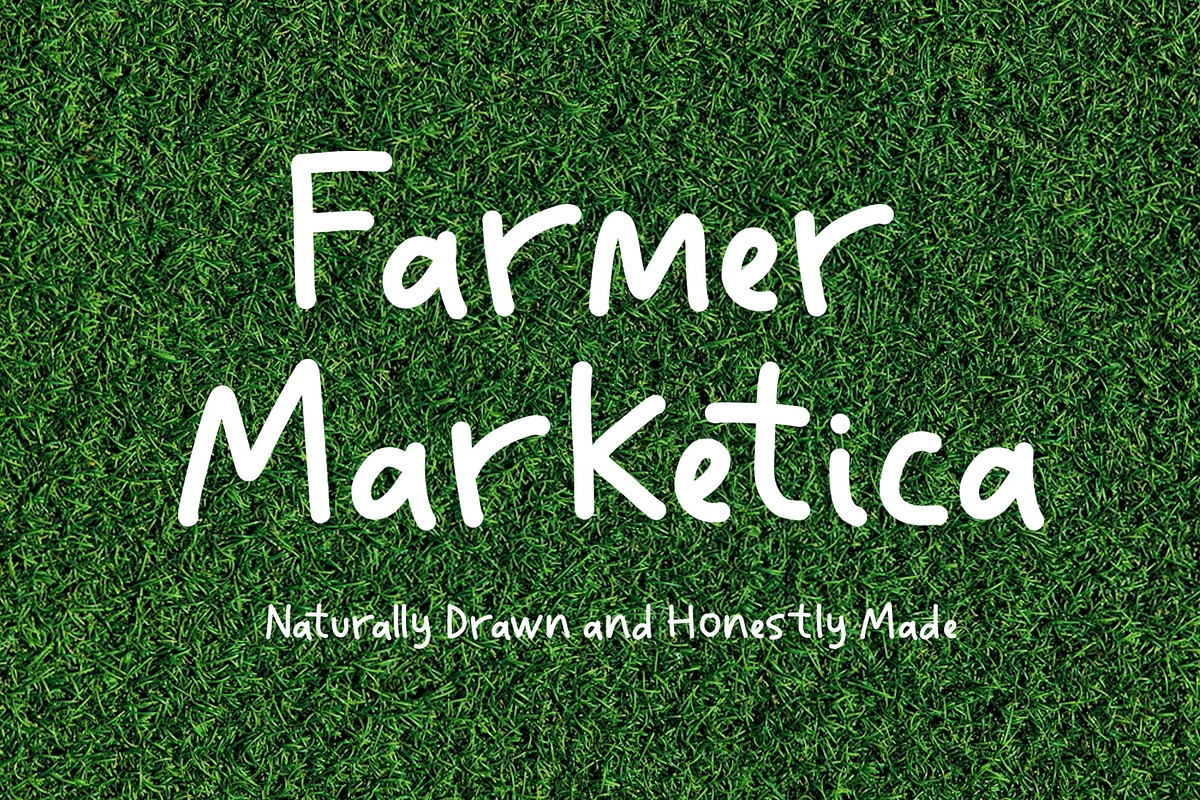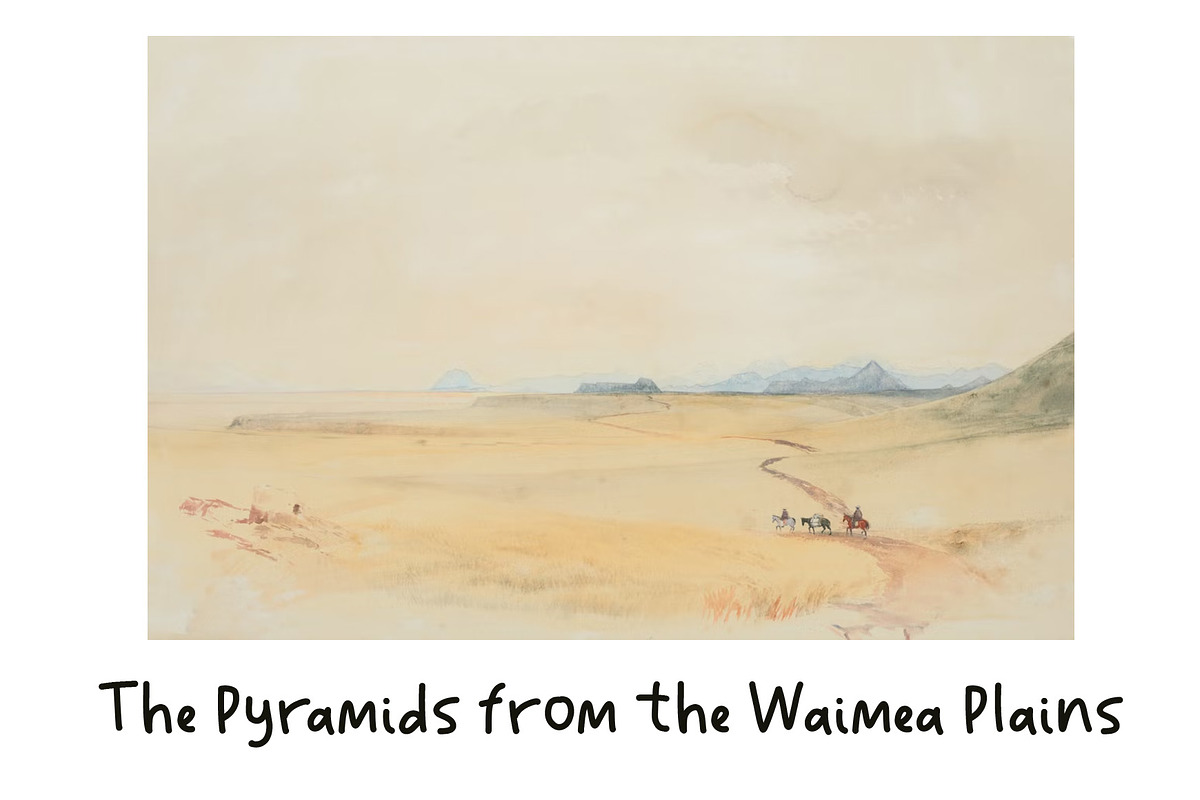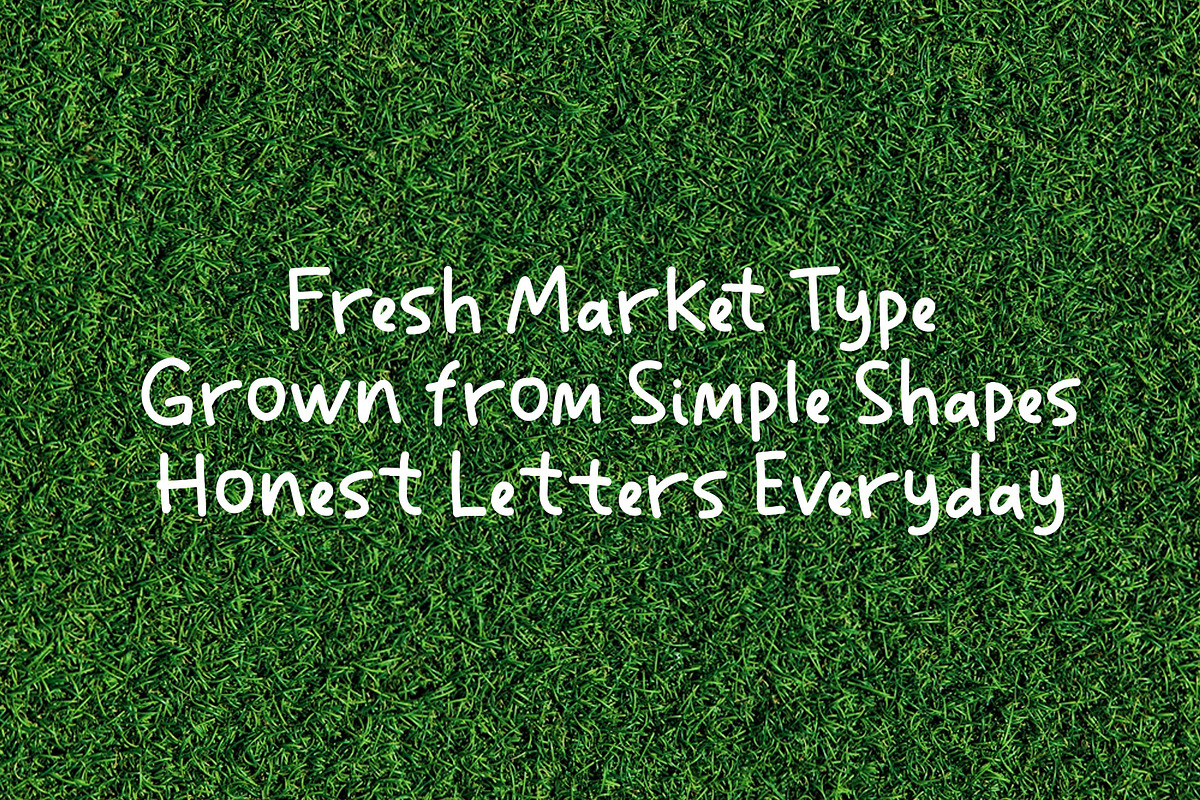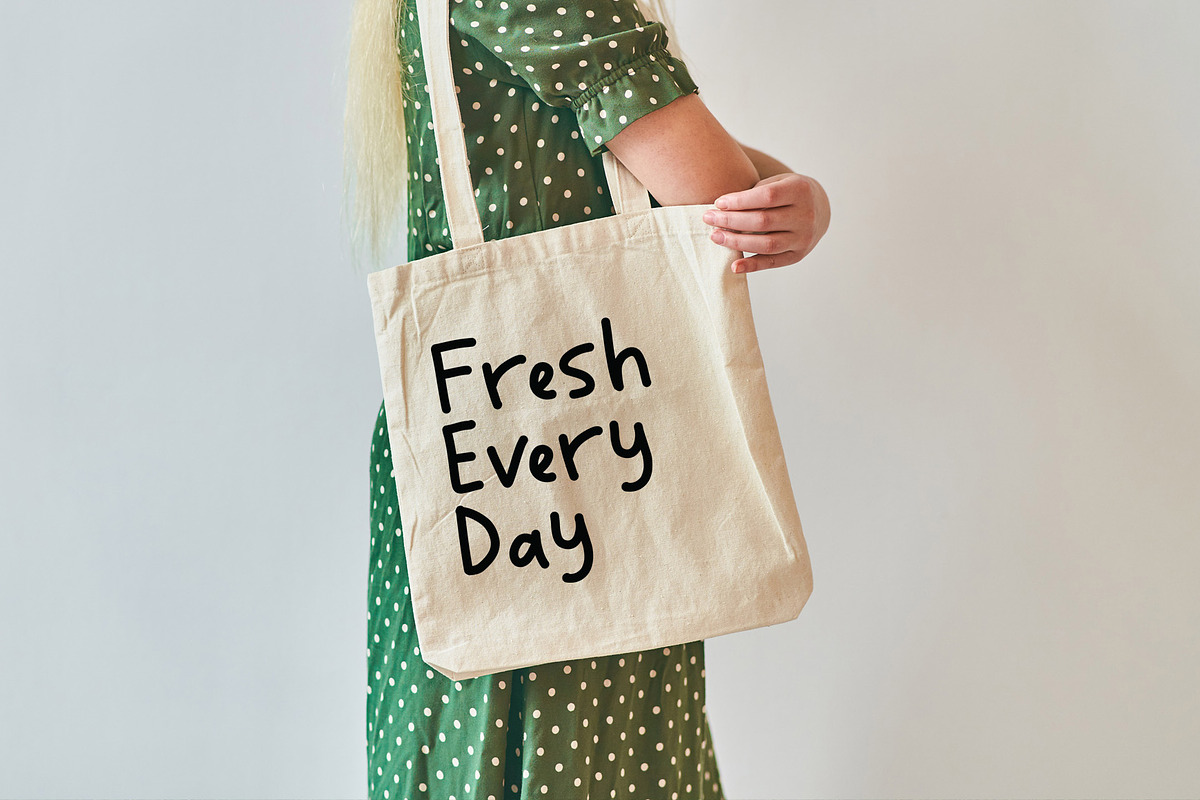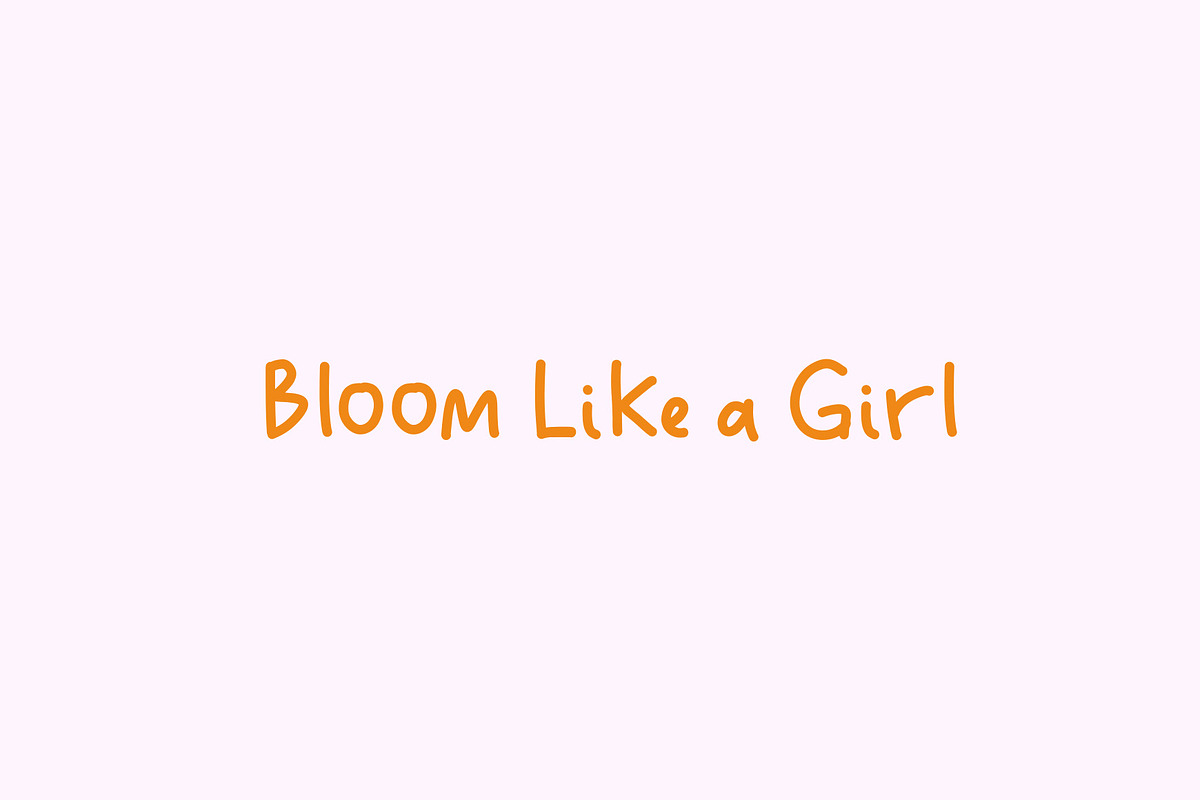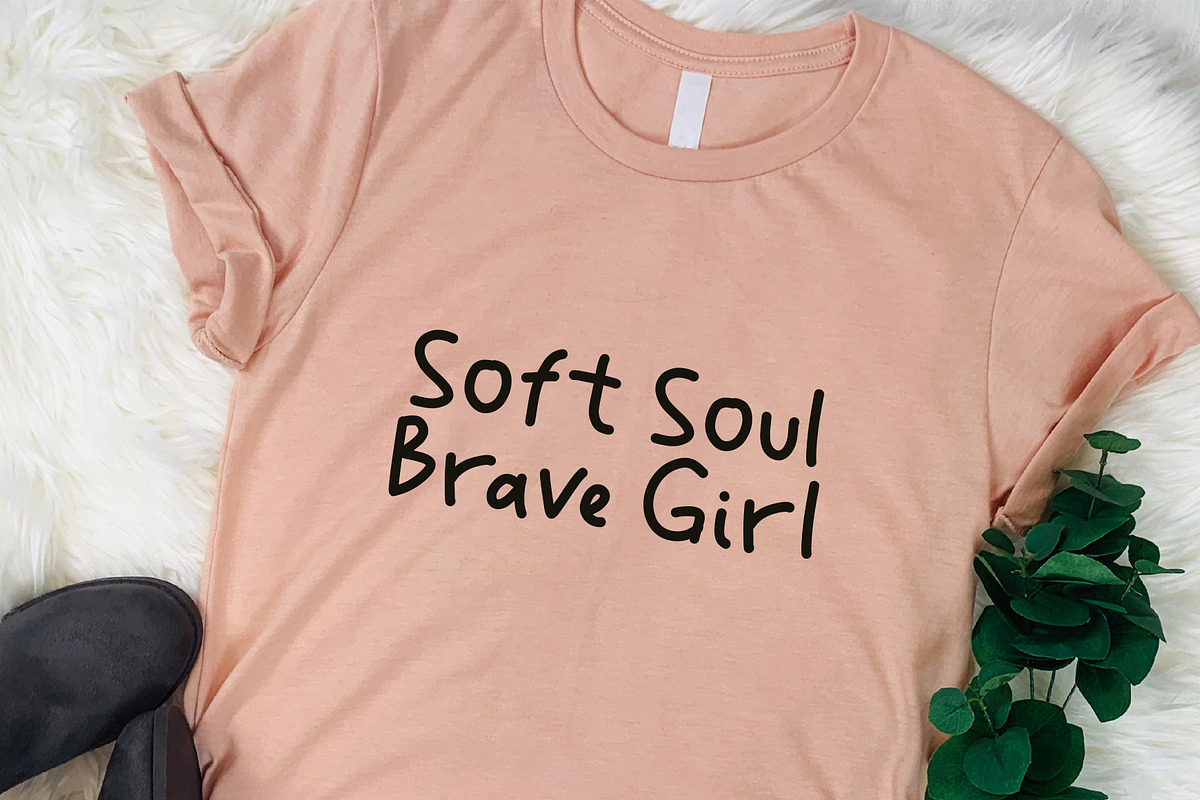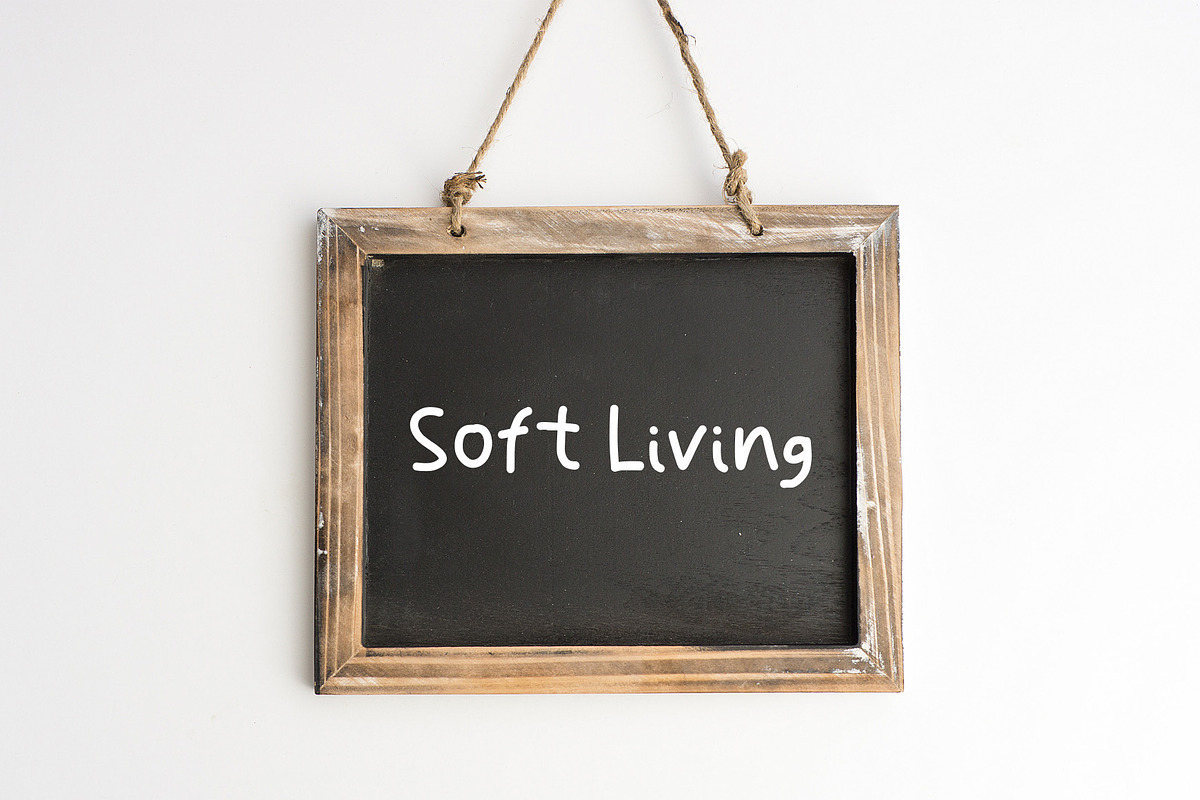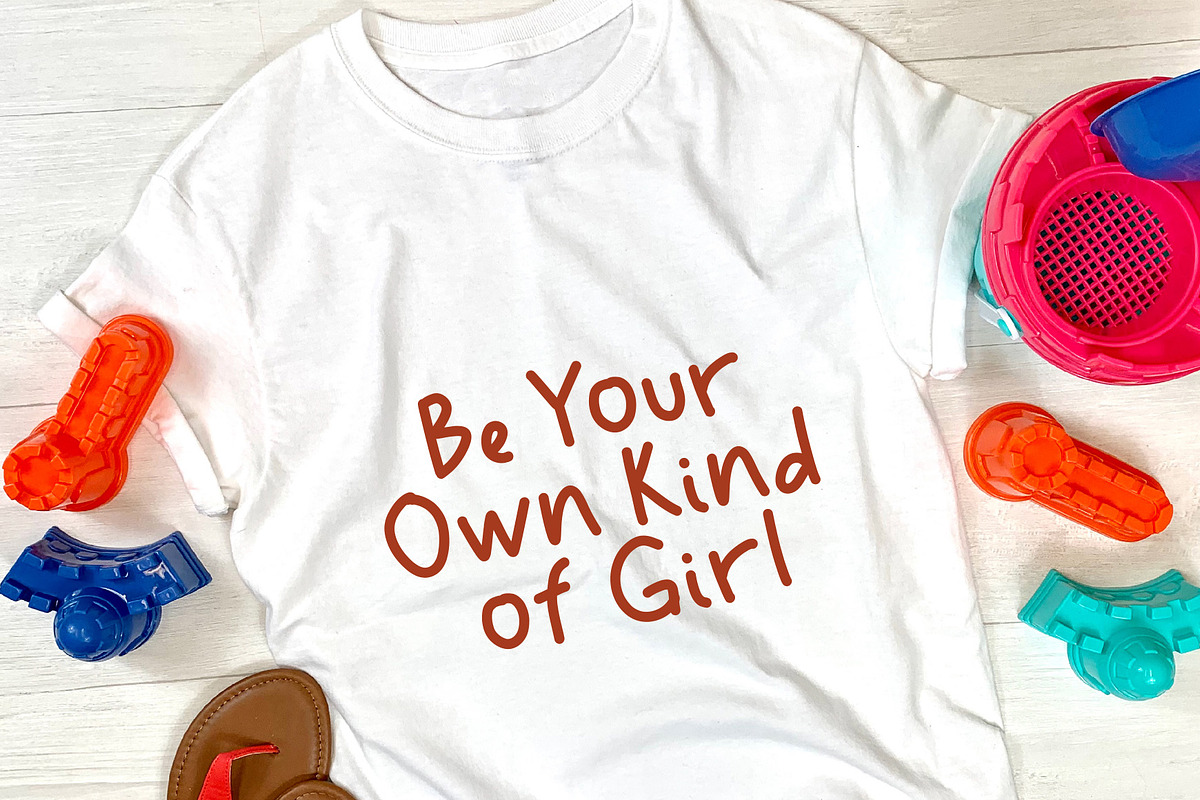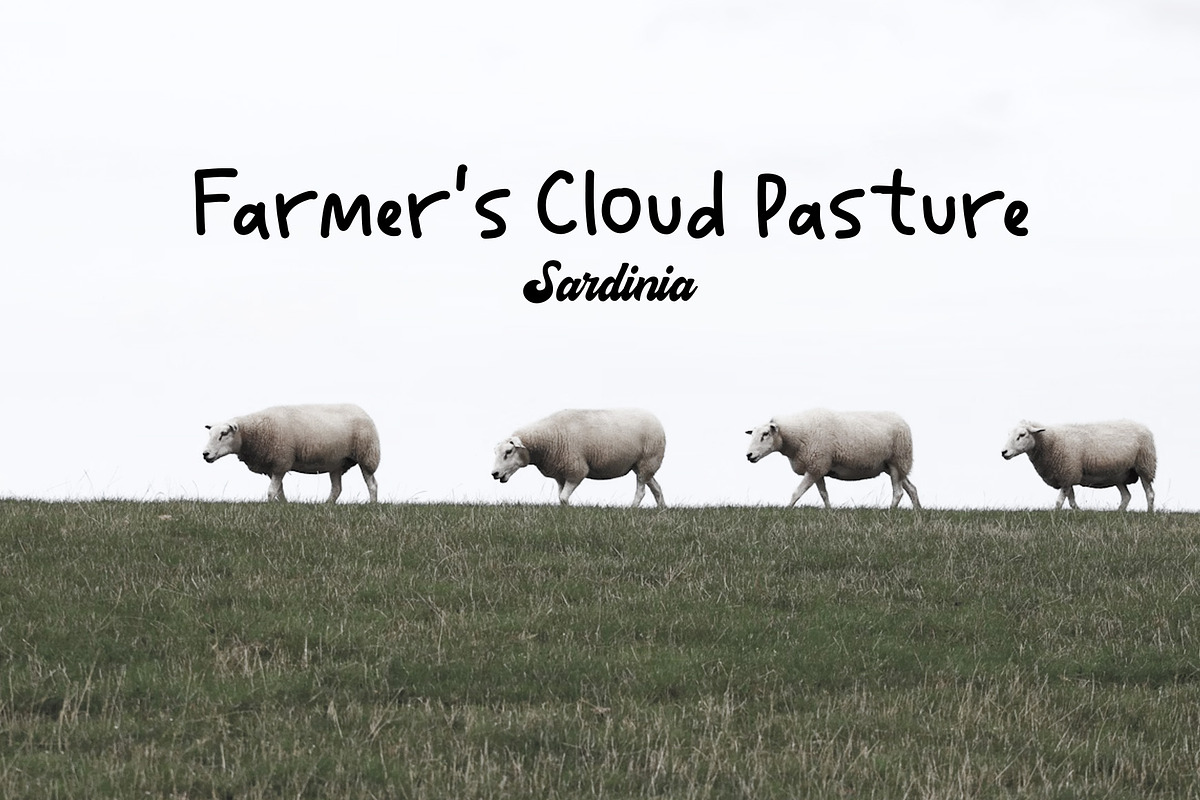
Farmer Marketica | Natural Hand Draw
Farmer Marketica is a natural hand-drawn font with an organic, imperfect feel that captures warmth, creativity, and a personal touch. Its casual strokes make it ideal for friendly, artistic, and expressive designs.
This font is perfect for Social media graphics, Children’s books, playful illustrations, invitations, canva projects, Posters, flyers, cricut, logos, teachers, goodnotes, Quotes, headings, planners and more!